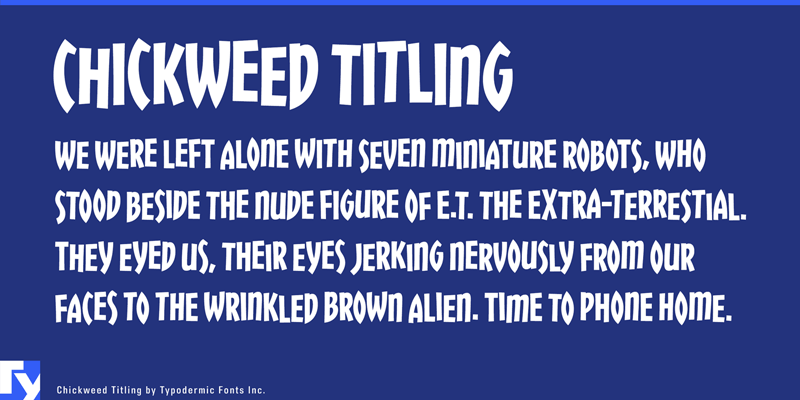
When you want entertaining, casual headlines that take up minimal space, Chickweed is your font. In OpenType savvy applications, letter & numeral variations are automatically shuffled for a more natural, giddy look. If you'd like a version with lowercase, check out the regular Chickweed typeface. http://typodermicfonts.com/chickweed/ This font includes a license that allows free commercial use: sometimes referred to as a desktop license. This allows you to install the font on a computer and use it to create posters, web graphics, game graphics, t-shirts, videos, signs, logos and more. Read the license agreement for details. If you'd like to embed this font in an app, ebook, on the web or anything that's not covered by the desktop license agreement, visit the link below. You'll find distributors who offer different types of licenses or you can contact me for help. http://typodermicfonts.com/chickweed-titling/ |